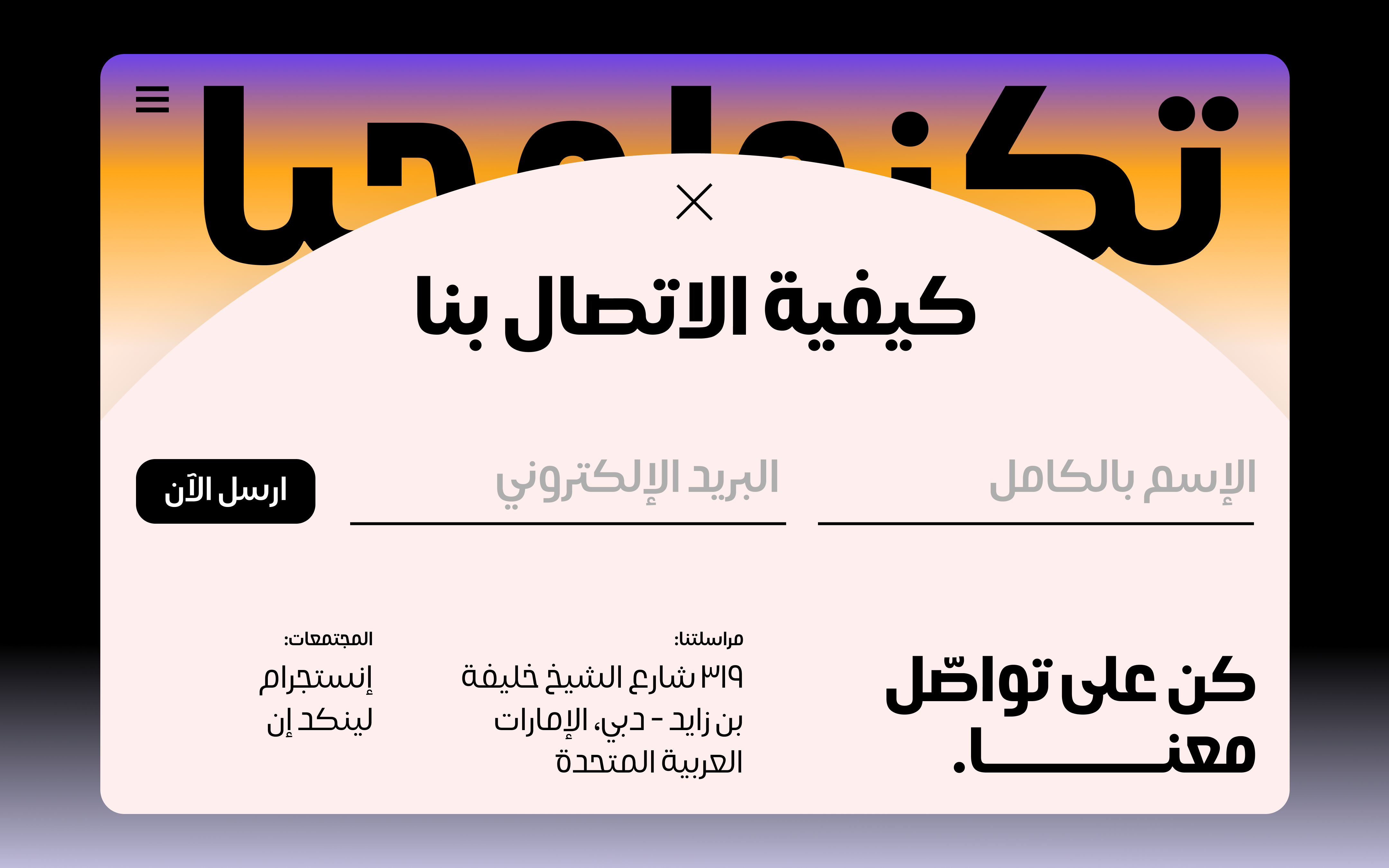
Simplicity, Rhythm & Multilingual Clarity.
Khareef (Autumn) is a multilingual script, a contemporary Grotesk typeface, the Arabic letterforms are inspired by the traditional Kufic script, reimagined with modern sensibilities — It brings together generous curves, structured geometry, and playful detailing to create a dynamic yet balanced visual identity. Designed with a solid geometric backbone, Khareef gracefully bridges Arabic and Latin scripts, offering both clarity and character.
Khareef expresses a tension between compressed and wide shapes, blending full-rounded forms with more compact glyphs. This contrast injects a distinct rhythm and energy into the design. Every letterform is carefully crafted for legibility, especially in heavier weights, while stylistic alternates add personality without sacrificing functionality.
Khareef is prefectly works in headlines and short text. Ideal for contemporary designs, impactful branding, and digital layouts, Khareef offers versatility across a range of applications.
Available in nine static weights, Khareef also comes as a 2-axis variable font (weight and width axes) when ordering the full family. It supports Arabic, Latin, Kurdish, Persian, and Urdu, covering over 90 languages.
Opentype Features
Contextual Alternates, Stylistic Alternates, Standard Ligatures, Subscript, Scientific Inferiors, Superscript, Numerator, Denominator, Fractions, Ordinals.
Supported Languages
Arabic, Persian, Urdu, Latin and more +90 languages.
Styles & Weights
9 Weights: Thin, Extra-Light, Light, Regular, Medium, Semi-Bold, Bold, Black, Heavy.
Designer
Ibrahim Hamdi